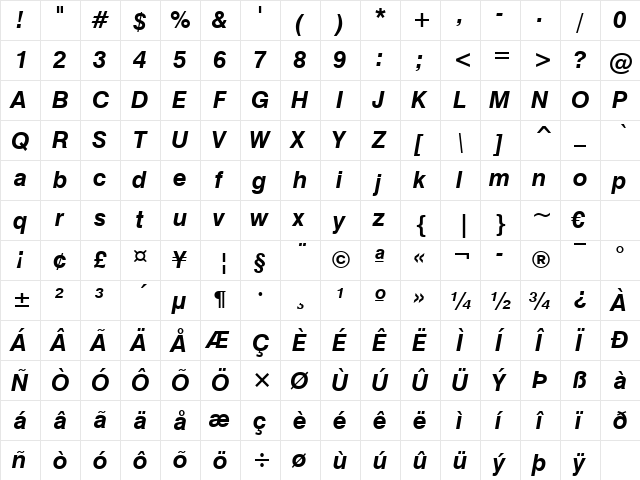
Swis721 WGL4 BT Bold Italic
Design Context for Swis721 WGL4 BT Typeface
Swis721 WGL4 BT takes a measured approach to typography — its balanced proportions and neutral character make it a reliable workhorse for both digital and print work. Its italic angle brings a sense of urgency and motion to the letterforms. The heavy weight commands attention and anchors typographic hierarchies.
Pro Tip: Try Swis721 WGL4 BT for annotation and caption copy alongside an upright companion — the contrast in angle creates a dynamic but ordered typographic system.